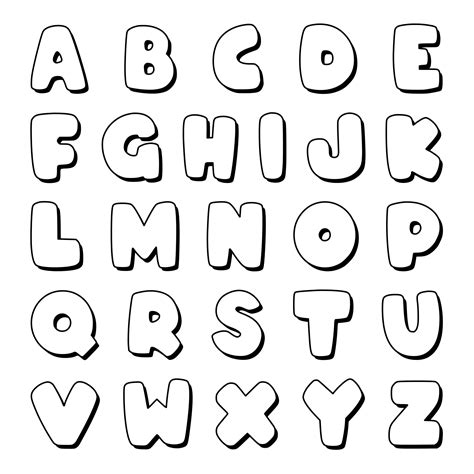
Printable Bubble Letters Font
Creating eye-catching and personalized designs has never been easier with the advent of digital tools. One of the most popular trends in graphic design is the use of Printable Bubble Letter templates. These templates allow users to create stunning, three-dimensional text that can be used for a variety of projects, from invitations and posters to social media graphics and more. Whether you're a seasoned designer or a beginner, understanding how to use Printable Bubble Letter templates can elevate your design skills and add a unique touch to your creations.
What are Printable Bubble Letter Templates?
Printable Bubble Letter templates are pre-designed lettering styles that feature a bubbly, three-dimensional appearance. These templates are typically available in digital formats such as PDF, PNG, or SVG, making them easy to download, customize, and print. The bubbly effect is achieved through the use of rounded edges and shadows, giving the text a playful and dynamic look. These templates are versatile and can be used in a wide range of projects, from children’s party invitations to modern marketing materials.
Benefits of Using Printable Bubble Letter Templates
Using Printable Bubble Letter templates offers several advantages:
• Time-Saving: Pre-designed templates save you the time and effort of creating bubble letters from scratch.
• Professional Quality: Templates are often created by professional designers, ensuring high-quality and polished results.
• Customization: Many templates allow for easy customization, enabling you to change colors, sizes, and fonts to match your project’s theme.
• Versatility: Printable Bubble Letter templates can be used in various projects, from digital designs to physical prints.
How to Use Printable Bubble Letter Templates
Step 4: Customize the Template
Customize the template by changing the text, colors, and sizes. Most templates come with editable layers, making it easy to modify individual elements. You can also add additional design elements like shapes, patterns, or images to enhance the overall look.
Printable Bubble Letter templates are incredibly versatile and can be used in a variety of projects. Here are some popular uses:
Invitations and Greeting Cards
Create eye-catching invitations for birthdays, weddings, or other special events. The bubbly, playful design of Printable Bubble Letter templates makes them perfect for children’s parties and fun gatherings.
Posters and Flyers
Design attention-grabbing posters and flyers for events, promotions, or announcements. The three-dimensional effect of bubble letters can make your posters stand out and attract more attention.
Social Media Graphics
Enhance your social media presence with visually appealing graphics. Printable Bubble Letter templates can be used to create engaging posts, stories, and cover photos that capture the attention of your followers.
Scrapbooking and Crafts
Add a personal touch to your scrapbooking projects or DIY crafts. Bubble letters can be printed and cut out to create unique embellishments for your scrapbook pages or handmade cards.
Educational Materials
Make learning fun with educational materials featuring Printable Bubble Letter templates. Create flashcards, posters, or worksheets that are both informative and visually appealing.
Tips for Creating Stunning Bubble Letter Designs
To make the most of your Printable Bubble Letter templates, consider the following tips: